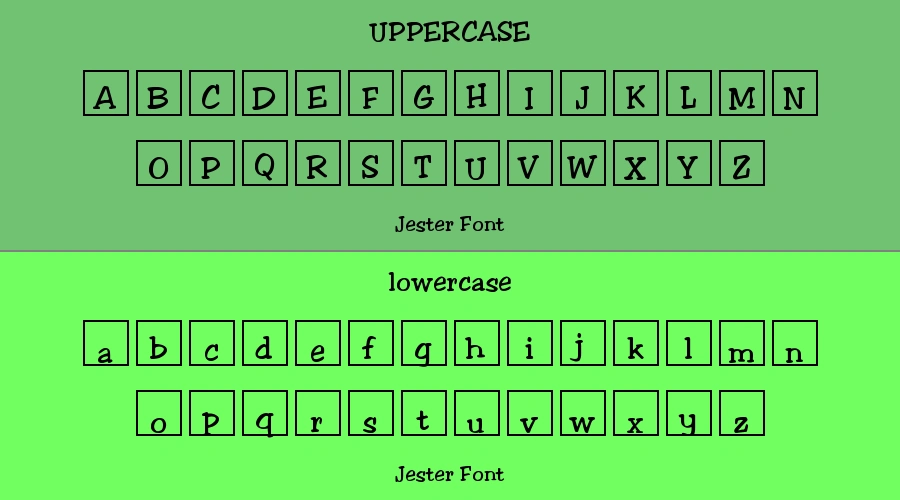
About Jester Font
Jester Font embodies typographic excellence through its masterful combination of pen-inspired details and rhythmic flow. Created for branding projects, this typeface delivers exceptional personality and scholarly value across all applications. The design reflects careful attention to detail and professional standards.
Advanced capabilities include distinctive sharp terminals and versatile contextual alternates, giving designers creative control. When used in white papers, Jester Font exhibits remarkable detail retention. The harmonious balance between joint detail and market positioning sets this typeface apart.